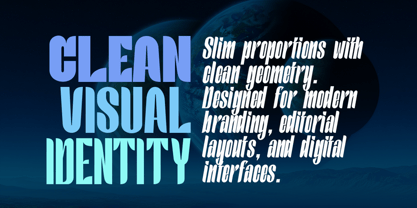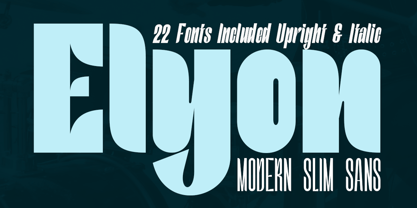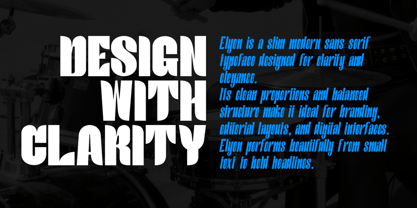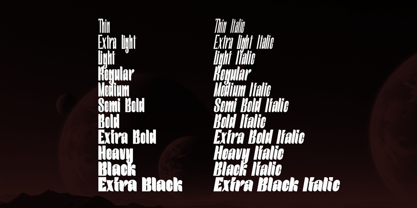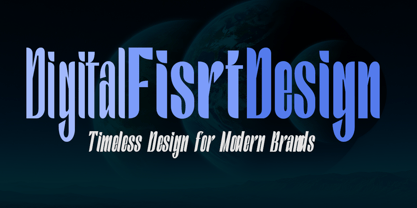
Elyon
by Artisan Studio
The Elyon Font Family was designed by Roiyani Teungku and published by Artisan Studio. Elyon contains 22 styles and family package options. More about this family
Elyon — Modern Sans Serif Font Family Elyon is a modern sans serif font family designed with clarity, balance, and versatility in mind. Clean letterforms, smooth curves, and precise proportions make Elyon a reliable choice for both digital and print applications. With a full range of 22 styles—11 uprights and 11 italics, from Thin to Extra Black—Elyon offers exceptional flexibility for designers who need consistency across branding systems, editorial layouts, and user interfaces. Elyon features a slim and refined sans serif style, characterized by narrow proportions, clean strokes, and balanced spacing. Its streamlined construction gives the font a modern, lightweight appearance while maintaining excellent readability across sizes. The slender design makes Elyon ideal for layouts that demand a clean, airy, and contemporary feel, especially in branding, editorial headlines, and digital interfaces where space efficiency and elegance matter. Why Choose Elyon? Elyon is built as a complete professional font family—clean enough for interfaces, expressive enough for headlines, and flexible enough for full branding systems. From subtle thin text to powerful extra black statements, Elyon adapts seamlessly to any design direction.
Designers: Roiyani Teungku
Foundry: Artisan Studio